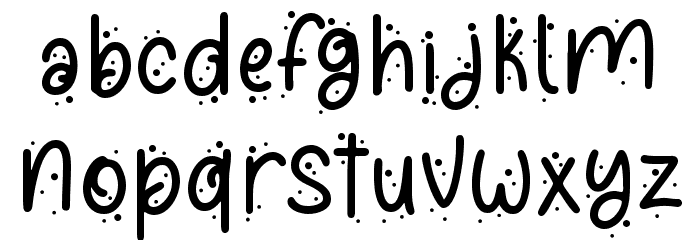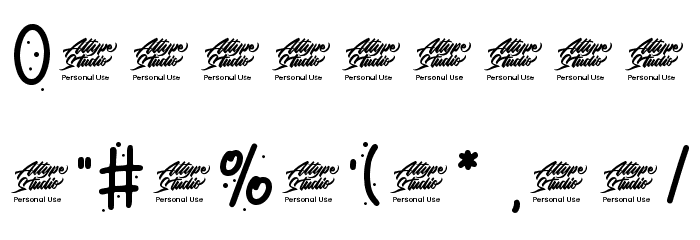
Snowy Dahlia Display Font
This playful and whimsical font features a unique dotted design that adds a touch of fun and creativity to any project. The characters are rounded and slightly elongated, giving them a friendly and approachable appearance. The dots surrounding each letter create a sense of movement and energy, making it ideal for projects that require a lively and engaging look. The font maintains a consistent stroke width, ensuring readability while still offering a decorative flair. Its distinct style is perfect for capturing attention and adding personality to your designs.
A playful, dotted font with rounded, elongated characters for a whimsical look.
- Proposed Projects: Ideal for children's books, playful branding, party invitations, and creative posters.
- Overall Style: Whimsical